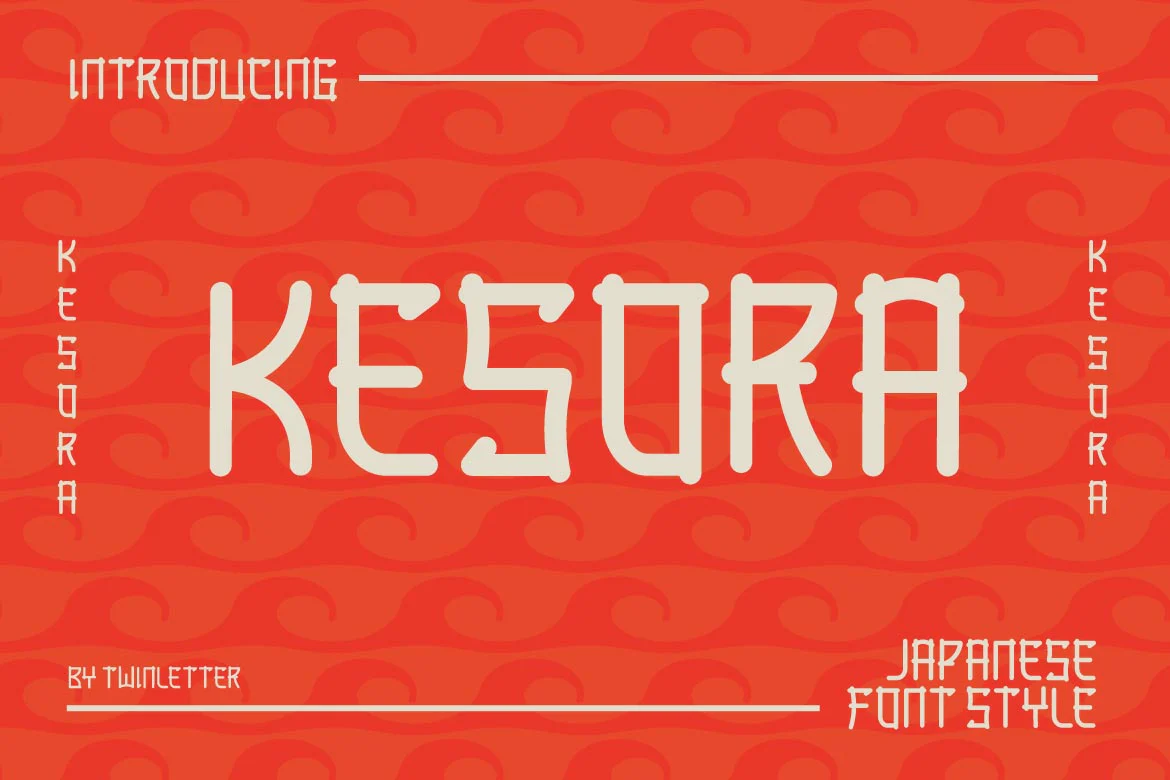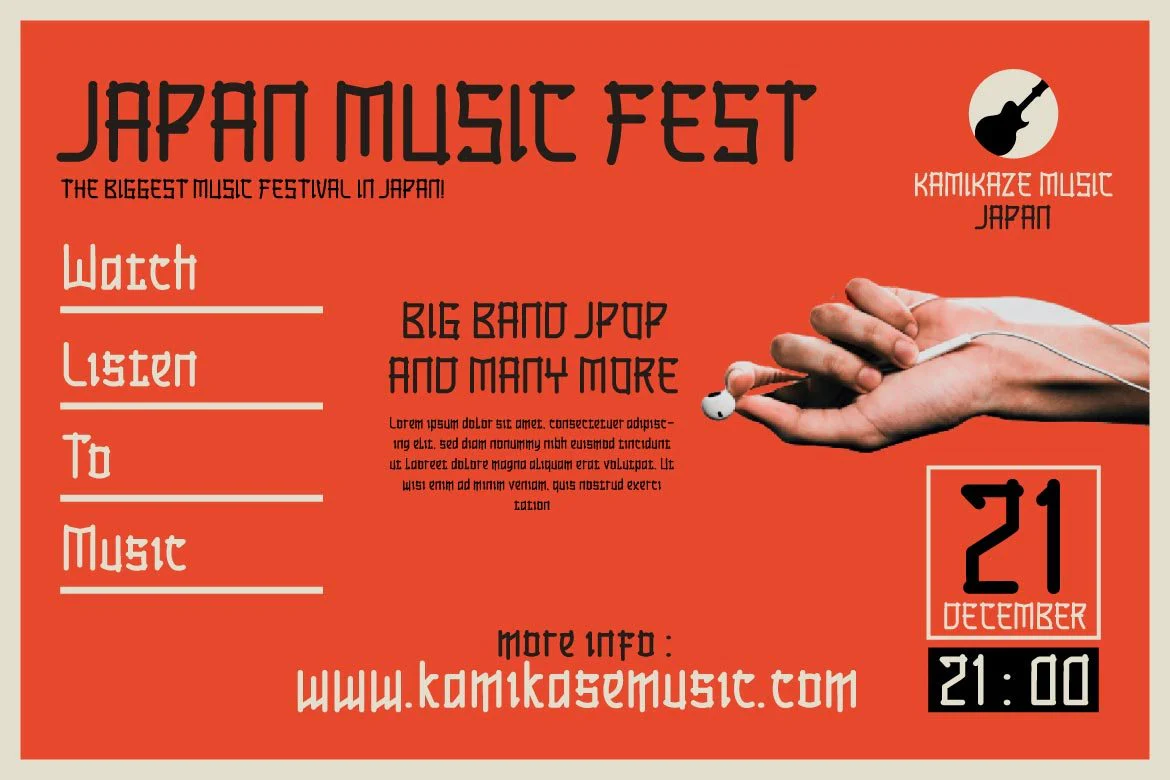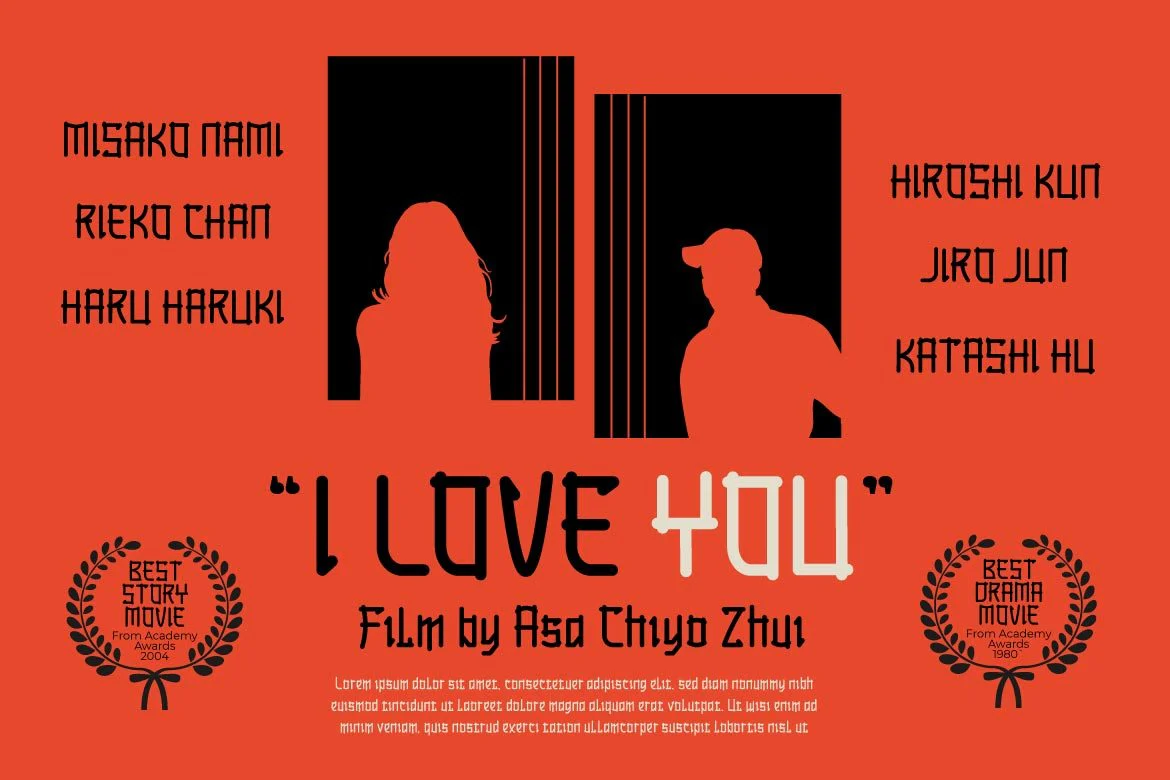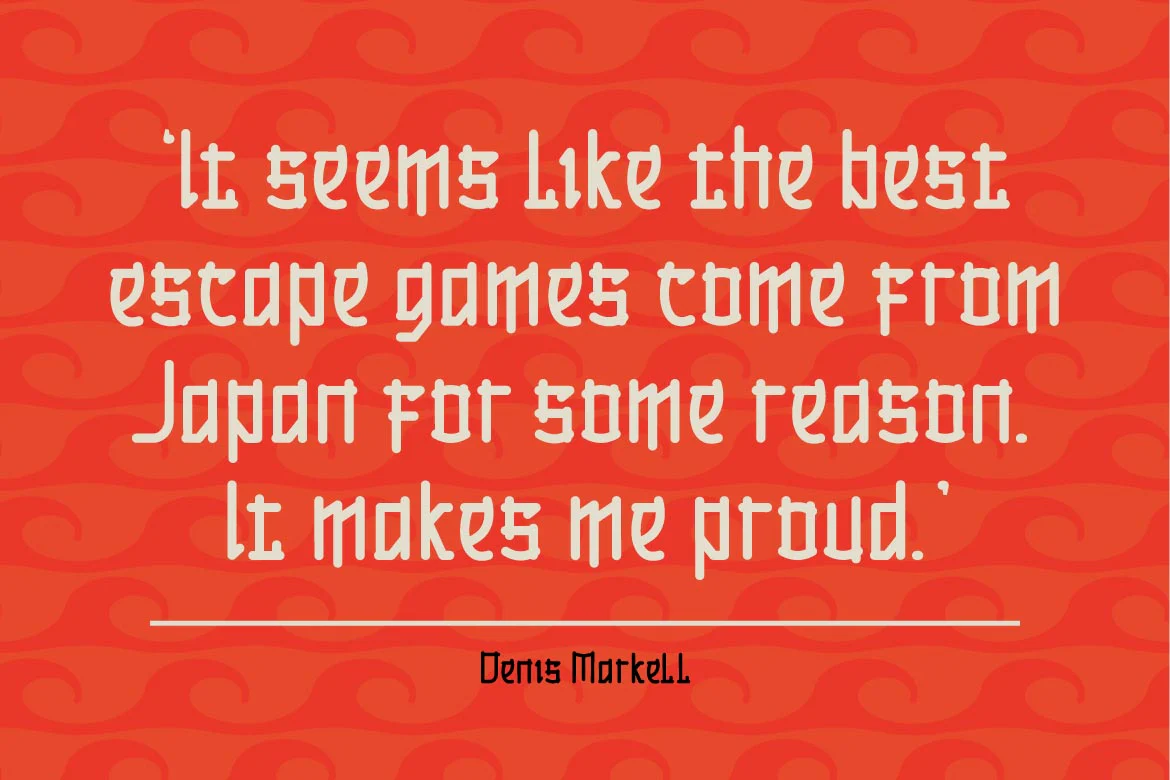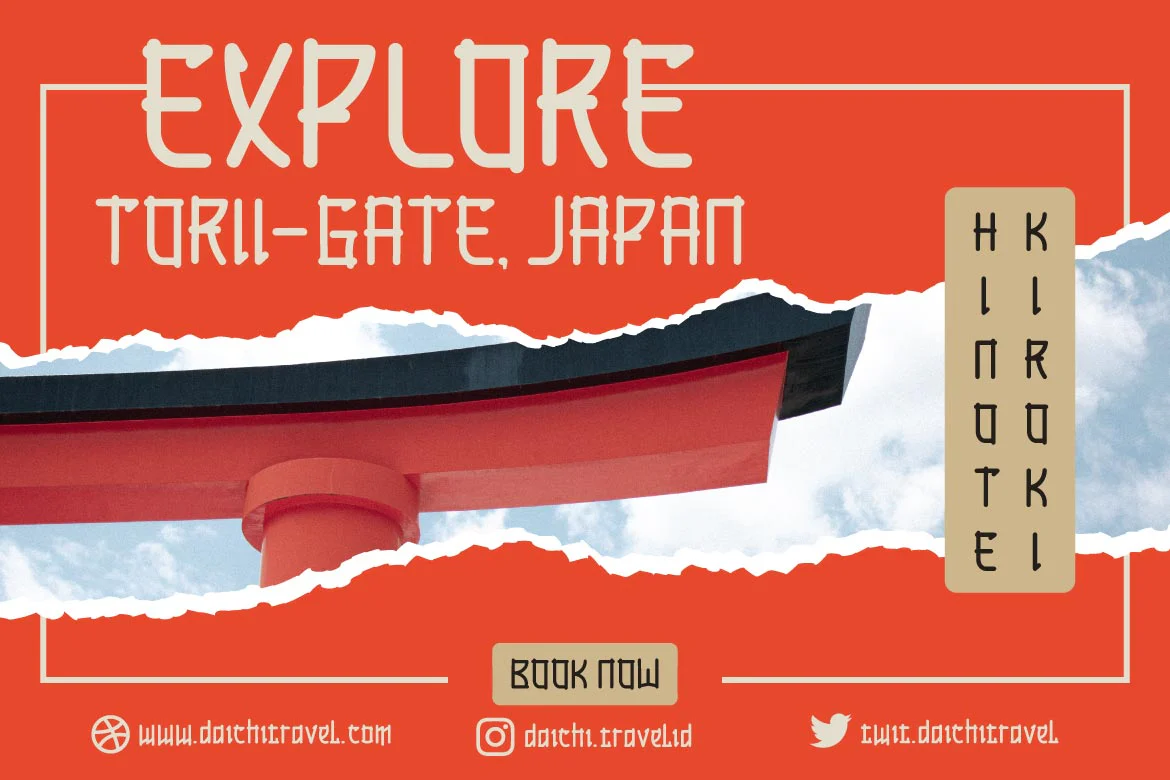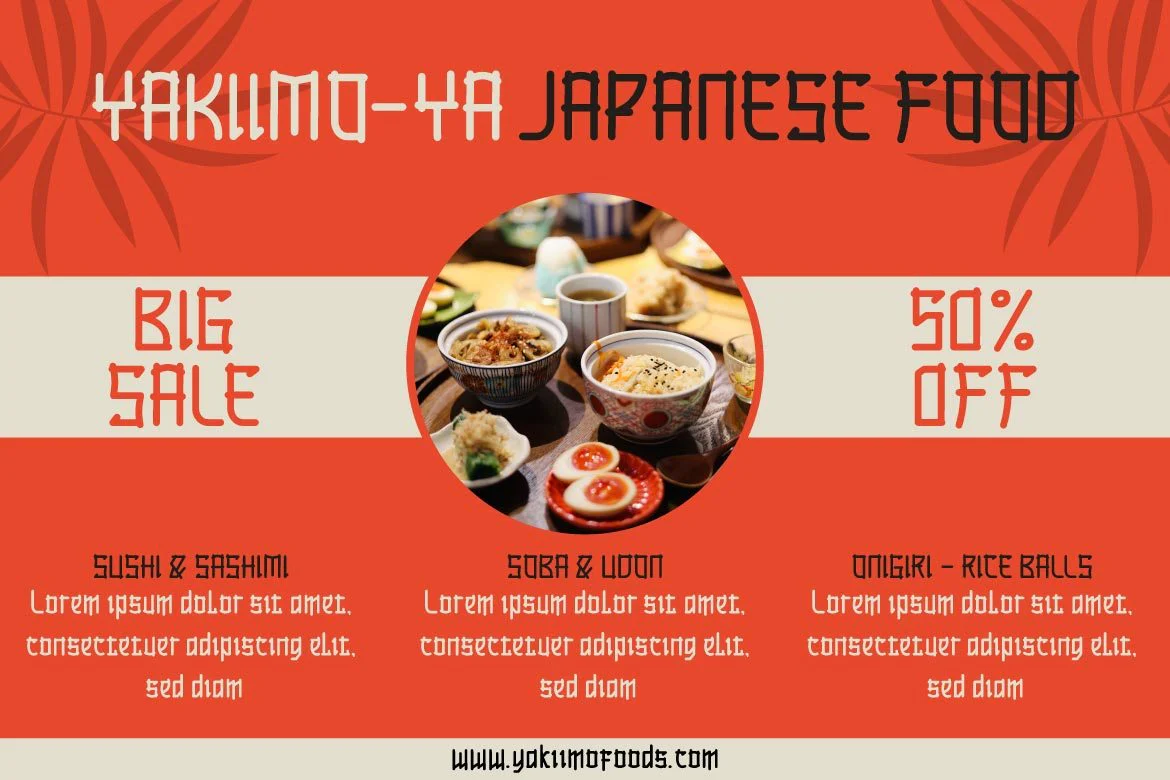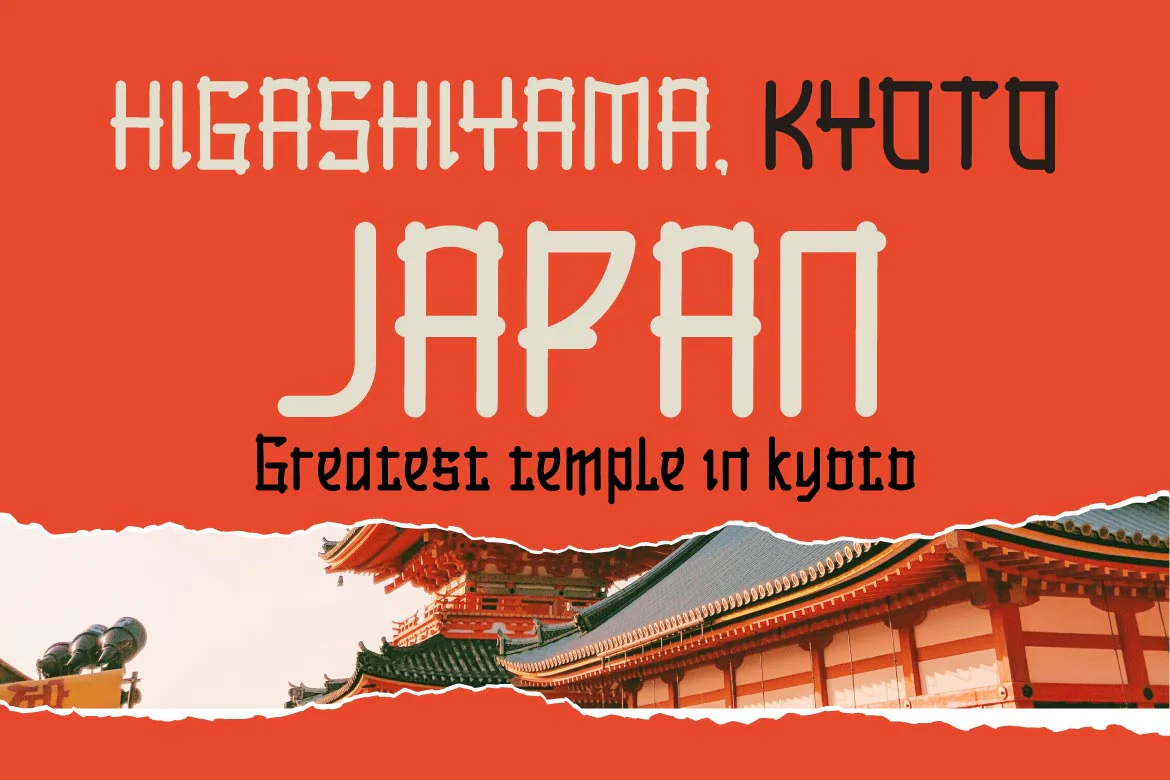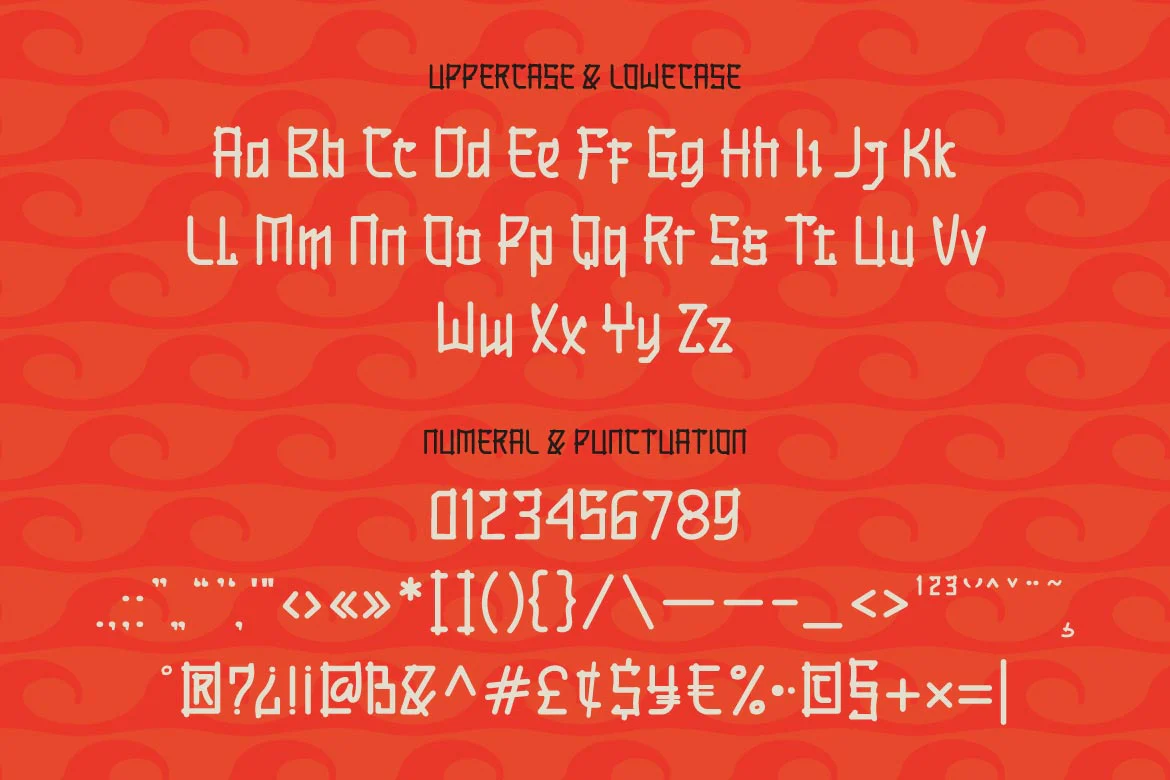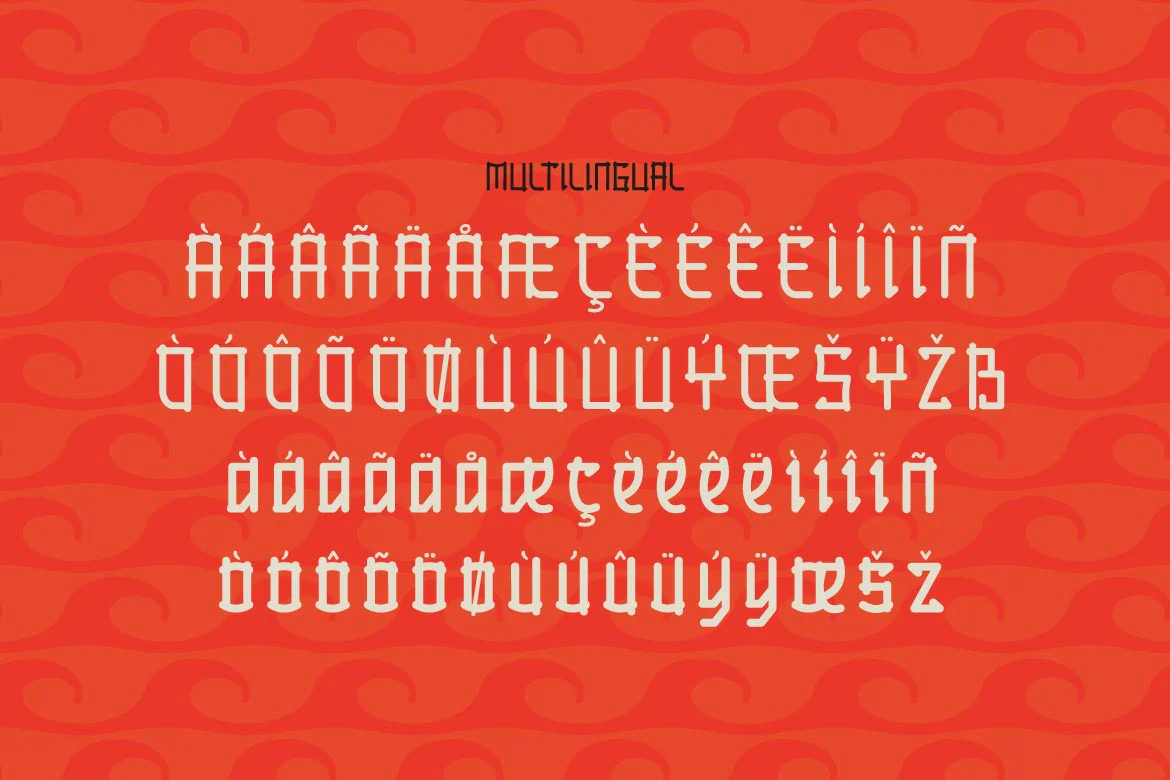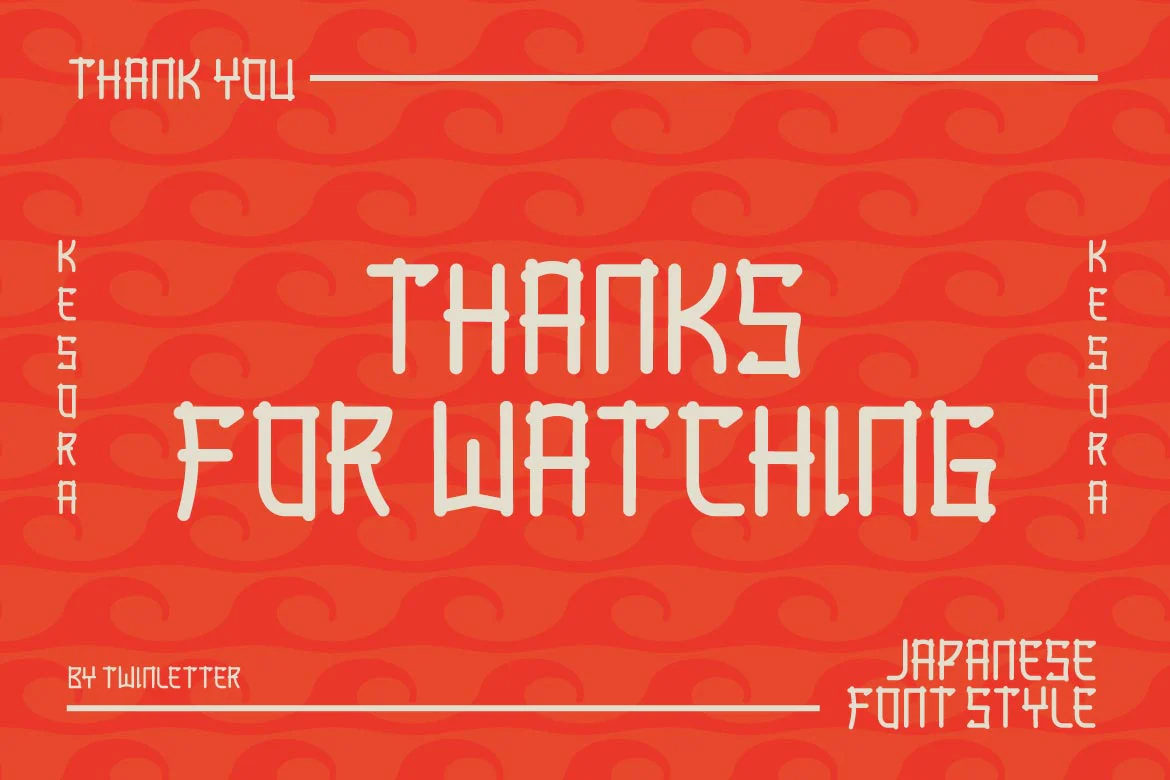
KESORA Faux Japanese Font
KESORA is a Japanese-style font that we carefully crafted to give your composition the proper look.
This font is really versatile, so you may use it for a wide range of projects.
Your project will always appear special to your audience if it has the proper composition, beautiful appearance, and unique shape.
Logotypes, food banners, branding, brochure, posters, movie titles, book titles, quotes, and more may all benefit from this font.
Of course, using this font in your various design projects will make them excellent and outstanding; many viewers are drawn to the striking and unusual graphic display.
Start utilizing this typeface in your projects to make them stand out.
KESORA is a Japanese-style font that we carefully crafted to give your composition the proper look.
This font is really versatile, so you may use it for a wide range of projects.
Your project will always appear special to your audience if it has the proper composition, beautiful appearance, and unique shape.
Logotypes, food banners, branding, brochure, posters, movie titles, book titles, quotes, and more may all benefit from this font.
Of course, using this font in your various design projects will make them excellent and outstanding; many viewers are drawn to the striking and unusual graphic display.
Start utilizing this typeface in your projects to make them stand out.